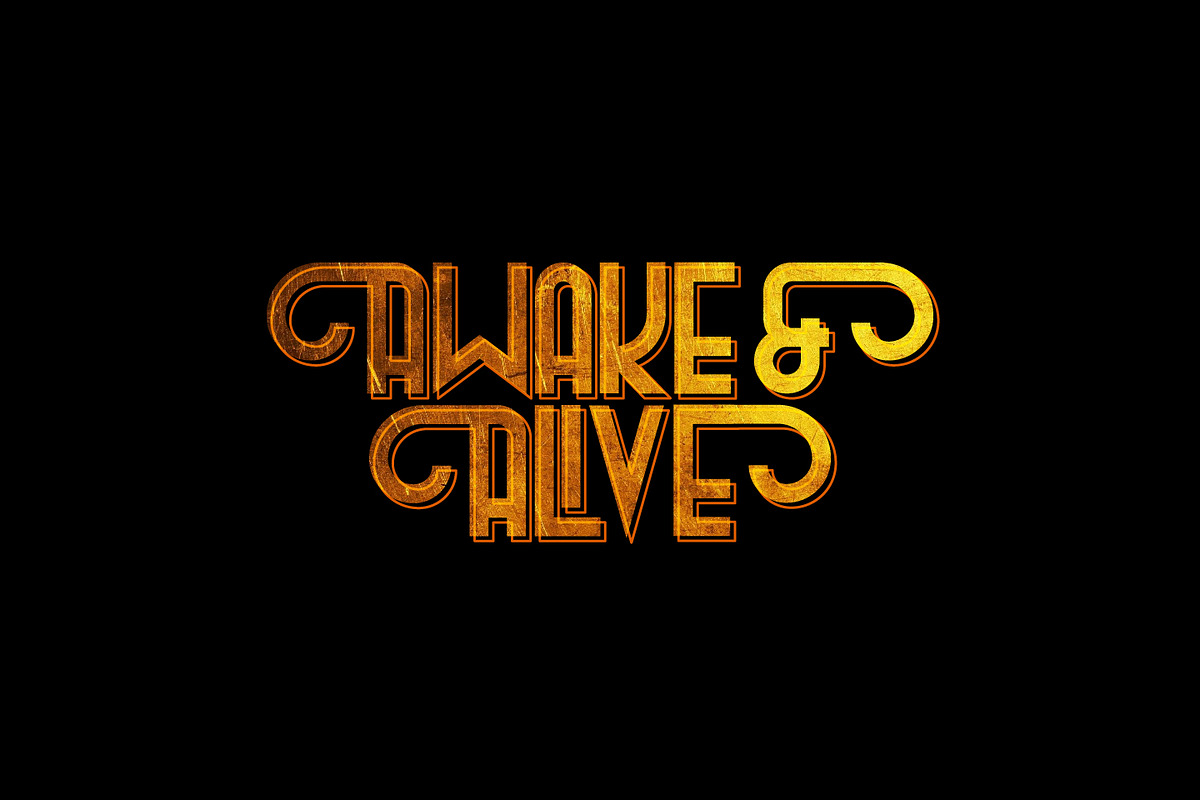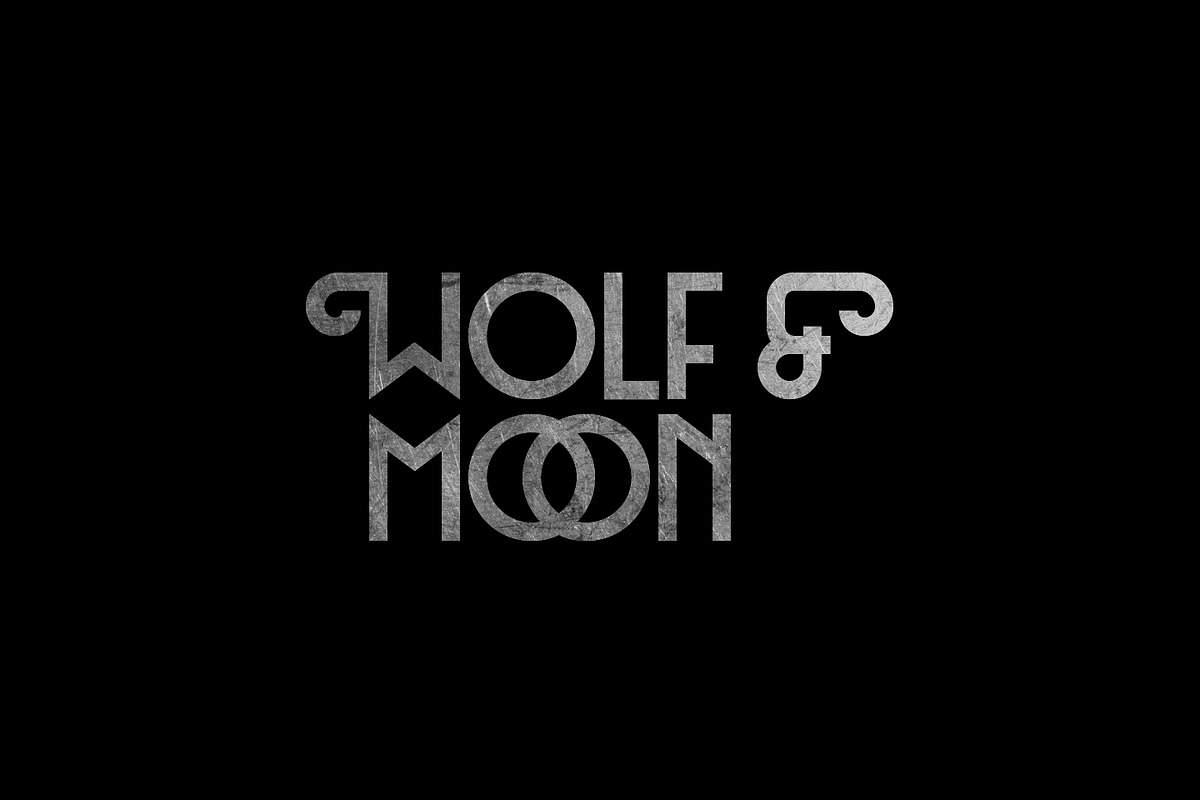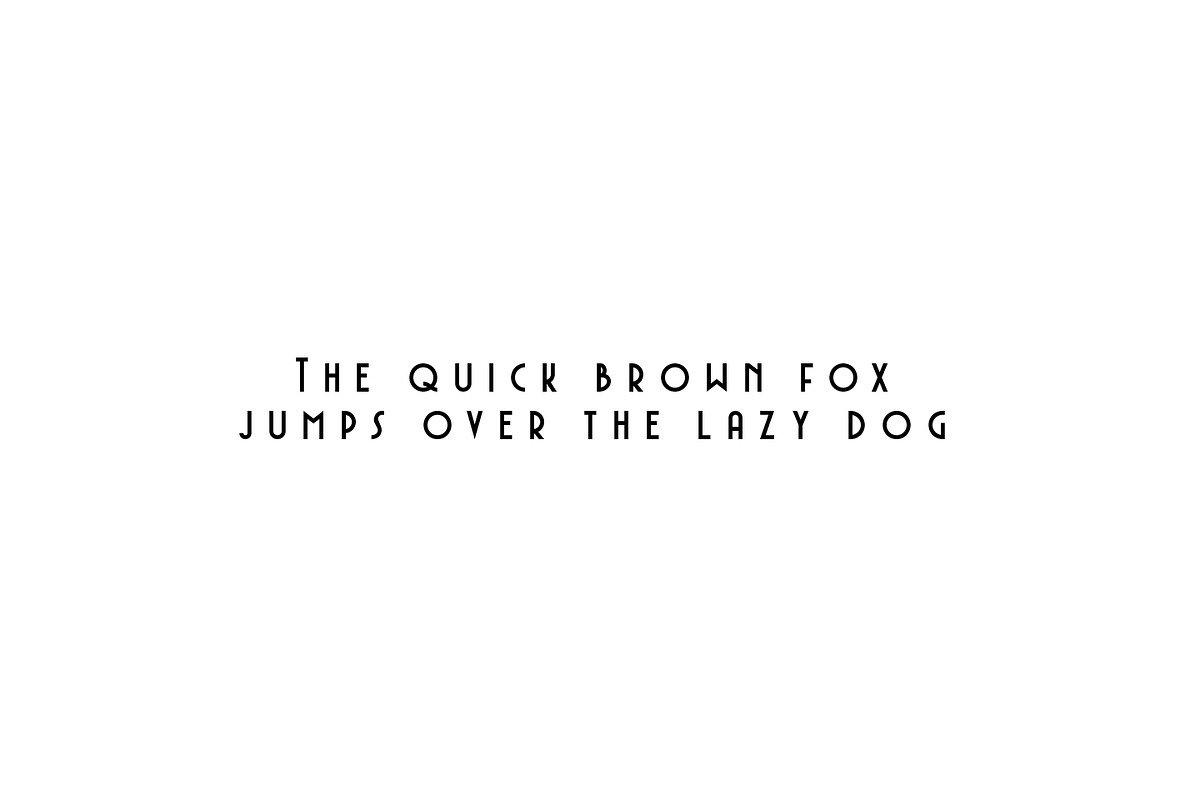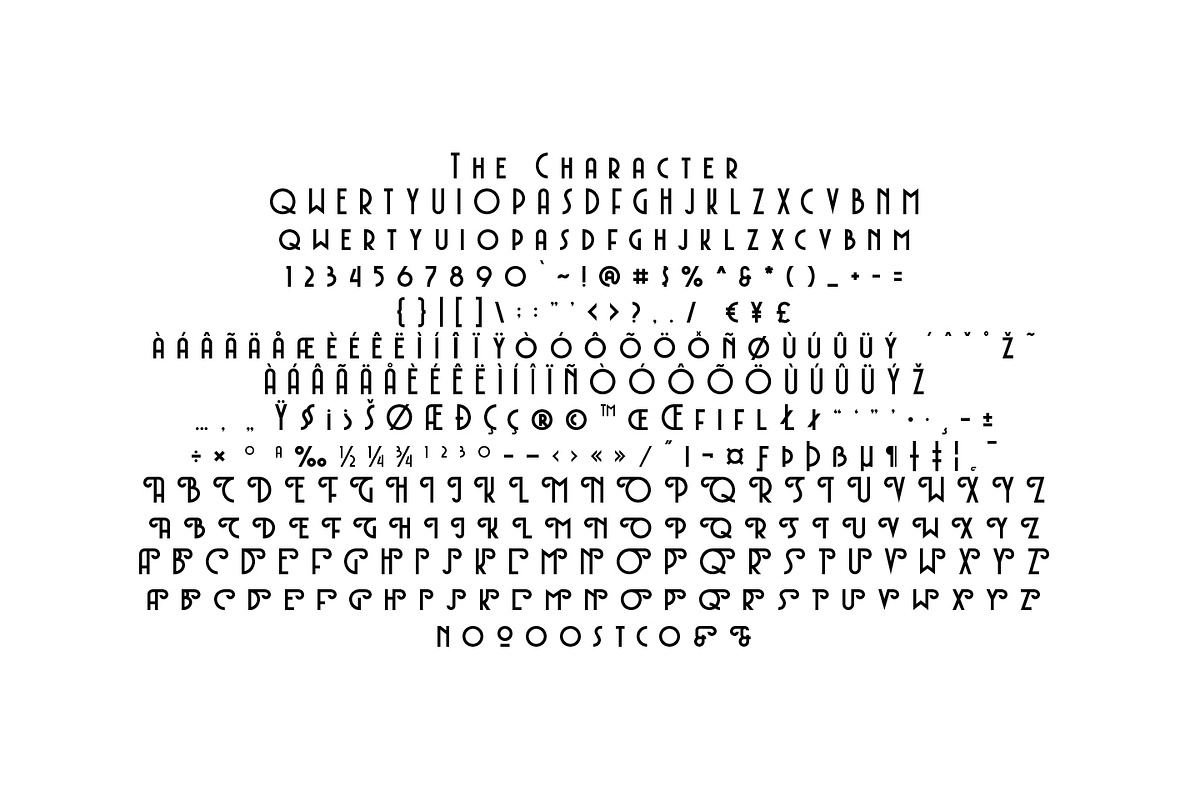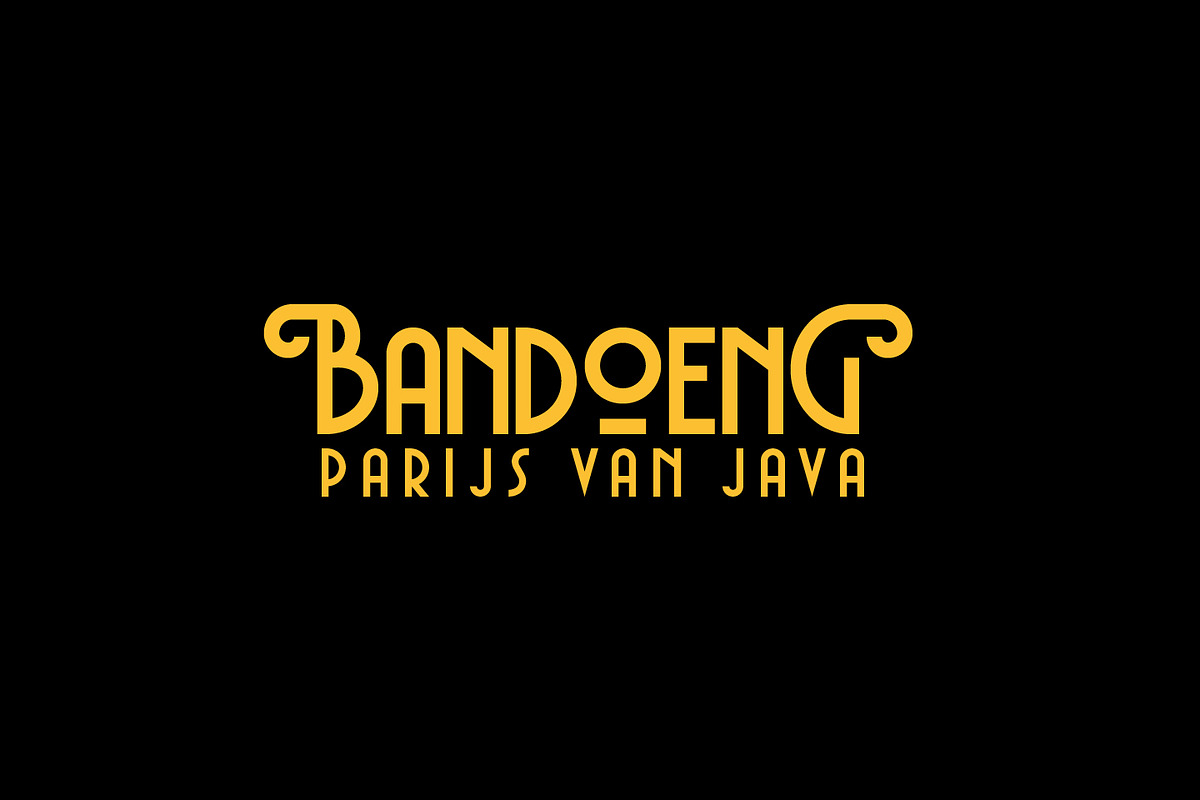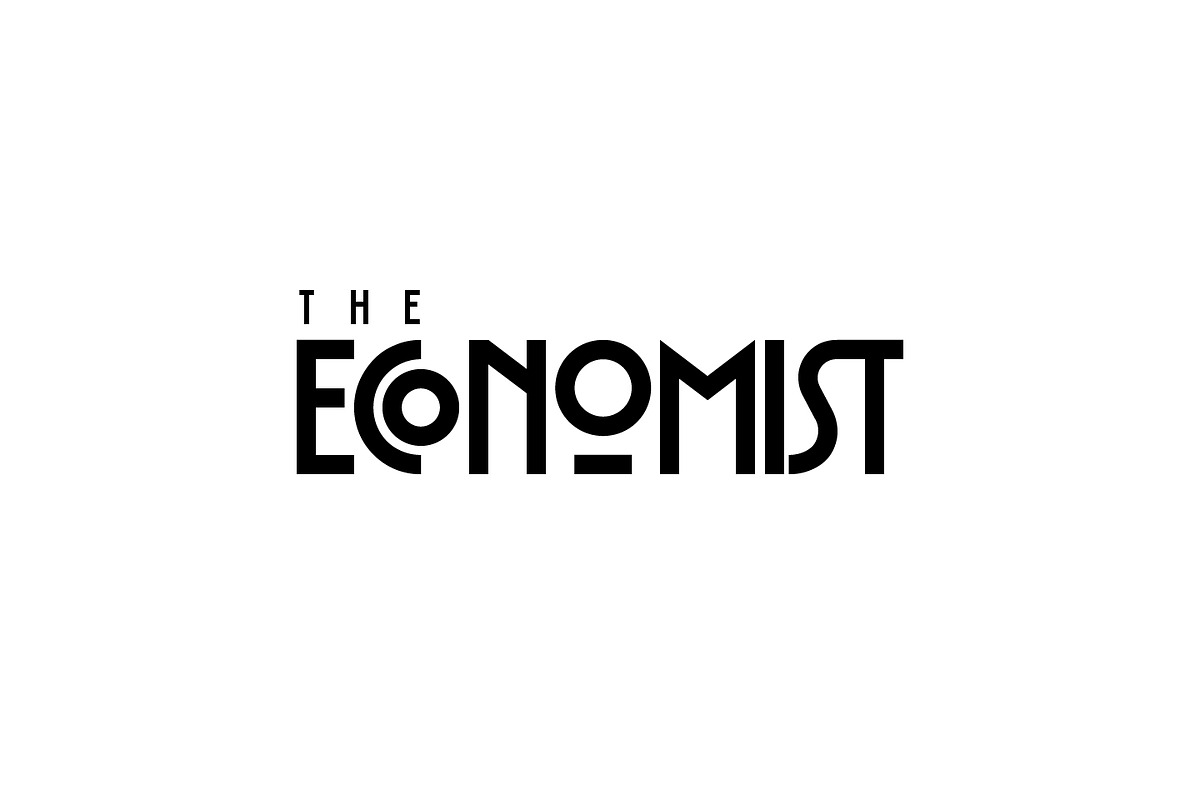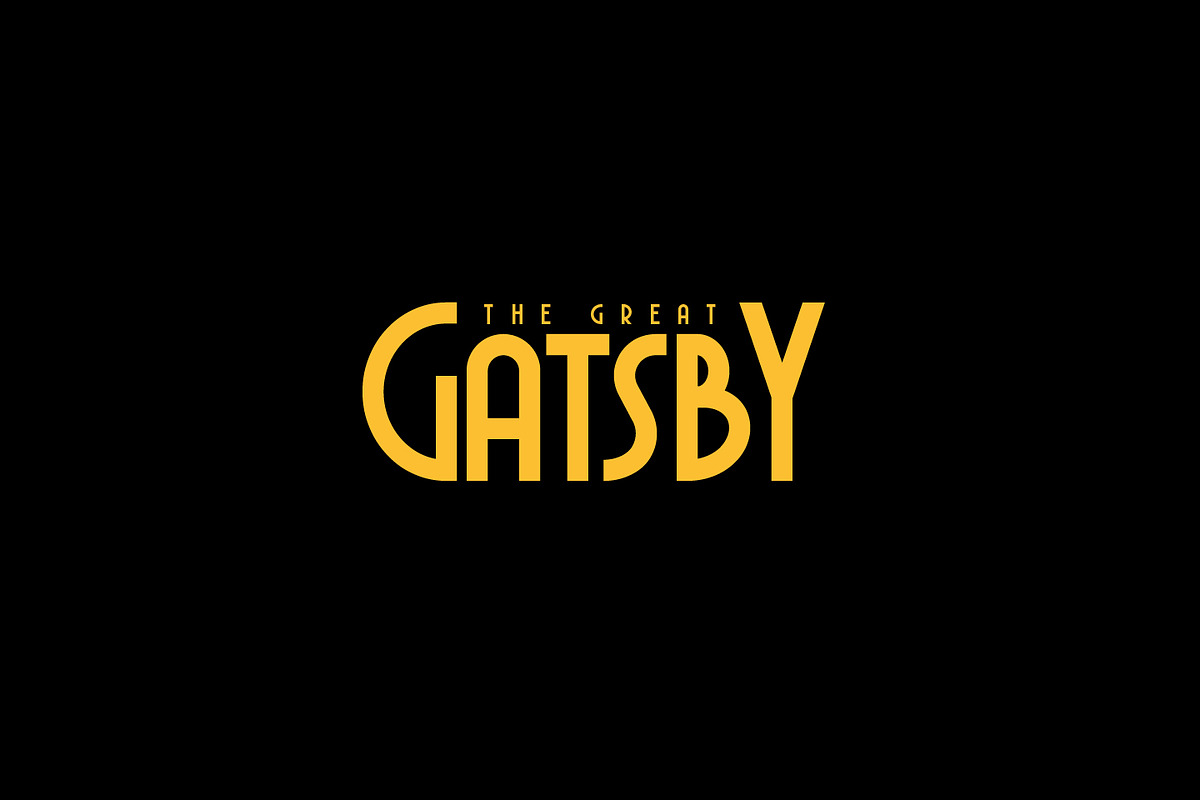
FSY DEKO | Vintage Typeface
Introducing FSY Deko, a typeface inspired by the art deco style that you might be able to use for design projects with classic, retro, vintage styles to make it even cooler. It can also be used with contemporary design styles.